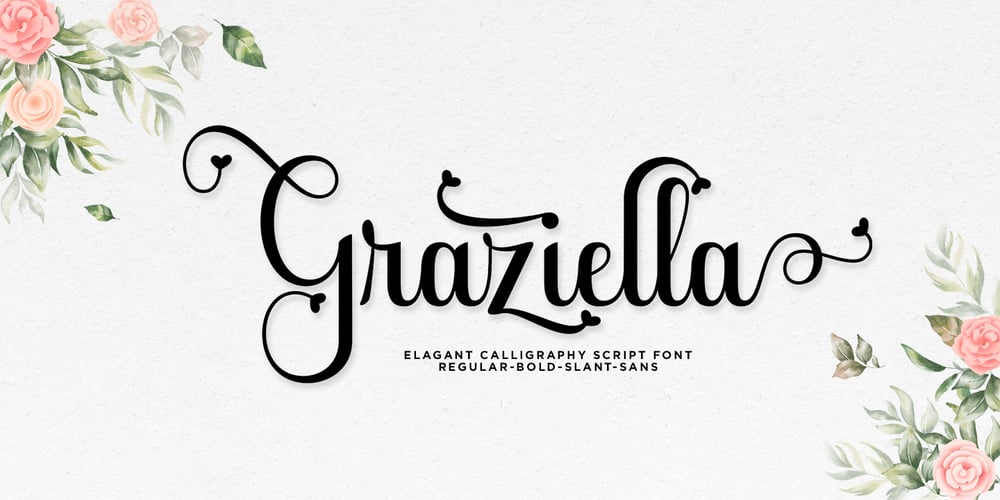
Graziella Script
Graziella Script font
Graziella Script Font Family was designed by Reza Haitami and published by Black Studio. Graziella Script contains 4 styles and family package options. Graziella Script is a calligraphy script font that comes with exquisite character changes, a kind of classic decorative copper script with a modern twist, designed with high detail for an elegant style.Graziella Script Manuscript is attractive because it is smooth, clean, feminine, sensual, glamorous, simple and very readable, because of its many fancy letter joints. I also offer a number of decent stylistic alternatives for multiple letters. Classic styles are very suitable to be applied in various formal forms such as invitations, labels, restaurant menus, logos, fashion, make up, stationery, novels, magazines, books, greeting / wedding cards, packaging, labels or all kinds of advertising purposes. . . . . . .Graziella Script has 436+ Glyph alternative characters, including multiple language support. With OpenType features with alternative styles and elegant binding. The OpenType feature works automatically, but you can access it manually and for the best results necessary for your creativity in combining these variations of the Glyph.I really hope you enjoy it!I can’t wait to see what you do with the Graziella Script! Feel free to use the #Black Studio tag and the #Graziella Script font to show what you’ve been up to.